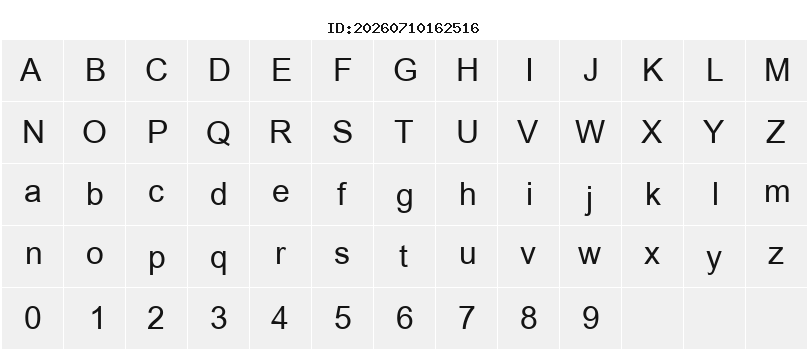
Geo_Arial Preview
• Font Name: Geo_Arial
• Font ID: Monotype:Arial Regular:Version 1 (Microsoft)
• Full Font Name: Geo_Arial
• PostScript Name: GeoArial
About Geo_Arial.ttf
Geo_Arial.ttf is a modern, elegant sans-serif font designed for ultimate readability and visual harmony. Perfect for branding, headlines, web design, and print materials.